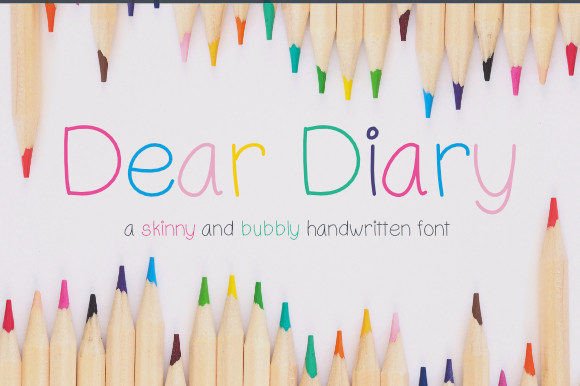
In the vast realm of digital art, where creativity and inspiration collide, there exists a font that captivates the heart with its undeniable charm - Dear Diary, a meticulously crafted script font born from the whimsical mind of Mockup Market.
Dear Diary is not merely a font, but an enchanting dance of letters, each stroke imbued with a unique personality and captivating elegance. Its skinny and bubbly nature exudes a sense of playfulness and warmth, while maintaining a touch of sophistication that elevates your digital creations to new heights.
Immerse yourself in a world of digital planning and note-taking like never before. With Dear Diary as your trusted companion, your digital planner transforms into an intimate diary, whispering secrets and dreams between its pages. Its natural handwritten look adds a touch of authenticity, making every stroke a personal expression of your thoughts and aspirations.
But Dear Diary's allure extends beyond the realm of personal journaling. Unleash its charm in countless projects, from planner and notebook mockups to social media designs and whimsical invitations. Its versatility is limitless, allowing your imagination to roam free and explore uncharted creative territories.
Step into the world of Dear Diary and unlock a treasure trove of creative possibilities. Embrace the magic of this captivating font, and let your digital creations blossom with beauty and grace.